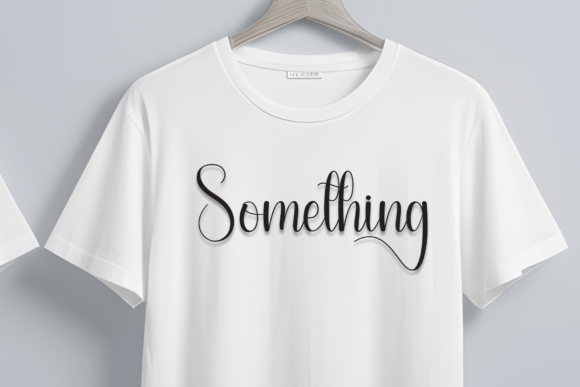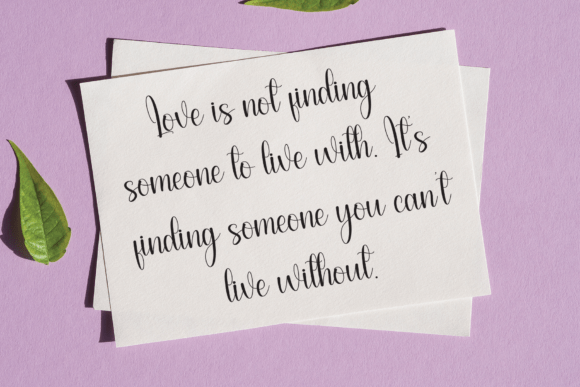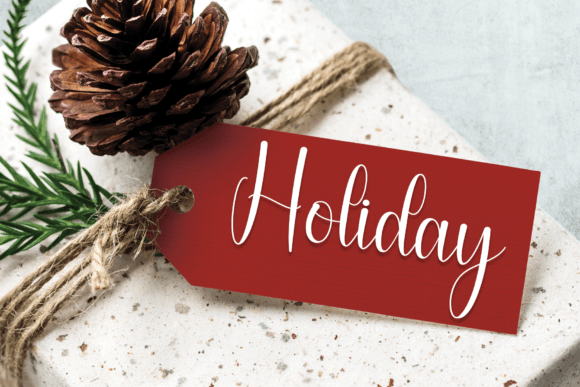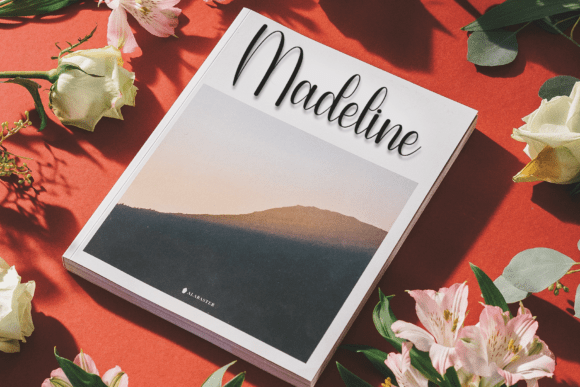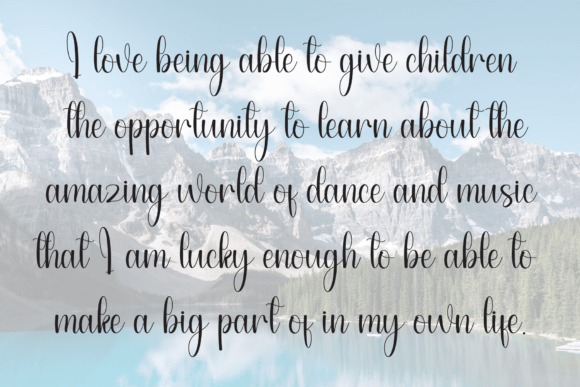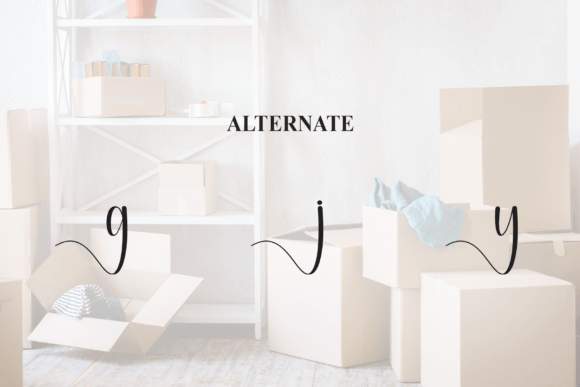
Bulky Font: Elevate Your Designs with a Touch of Whimsy and Elegance
Are you tired of using the same old fonts in your designs? Look no further! Introducing Bulky Font, a handwritten display font that combines playful flair with refined elegance. This exquisite font is sure to add a touch of magic to your designs, making them stand out from the crowd.
A Bouquet of Sweet Aesthetics
Bulky Font offers a unique blend of sweet aesthetics that will delicately weave a captivating charm into every design. Its elegant strokes and playful curves make it perfect for a variety of projects, from bewitching wedding invitations to heartfelt greeting cards, and any artwork yearning for a spritz of fanciful elation.
Unleash Your Creativity
With Bulky Font, you can revel in the alluring charm and empower your creativity, letting your designs resonate with unmatched uniqueness. This delightful font is sure to make every stroke tell its own intriguing tale, adding a touch of personality to your designs.
Whether you’re a designer or crafter, Bulky Font is the perfect addition to your toolkit. Its versatility and charm make it ideal for a range of projects, including:
- Artwork and illustrations
- Signage and branding
What Sets Bulky Font Apart
So, what makes Bulky Font so special? Here are just a few features that set it apart:
- Unique blend of playful flair and refined elegance
- Elegant strokes and playful curves
- Perfect for a range of projects, from formal to whimsical
- Easy to read and visually appealing
Tips for Using Bulky Font
To get the most out of Bulky Font, here are a few tips:
- Use it as a headline font to add a touch of elegance and whimsy
- Pair it with a simpler font for body text to create contrast
In conclusion, Bulky Font is a truly unique and special font that is sure to elevate your designs to the next level. Its blend of playful flair and refined elegance makes it perfect for a range of projects, from formal to whimsical. So why not give it a try and see the magic for yourself?
With Bulky Font, you can add a touch of whimsy and elegance to your designs, making them stand out from the crowd. So don’t wait – explore the whimsical enchantment of this delightful font today and discover a world of creative possibilities!